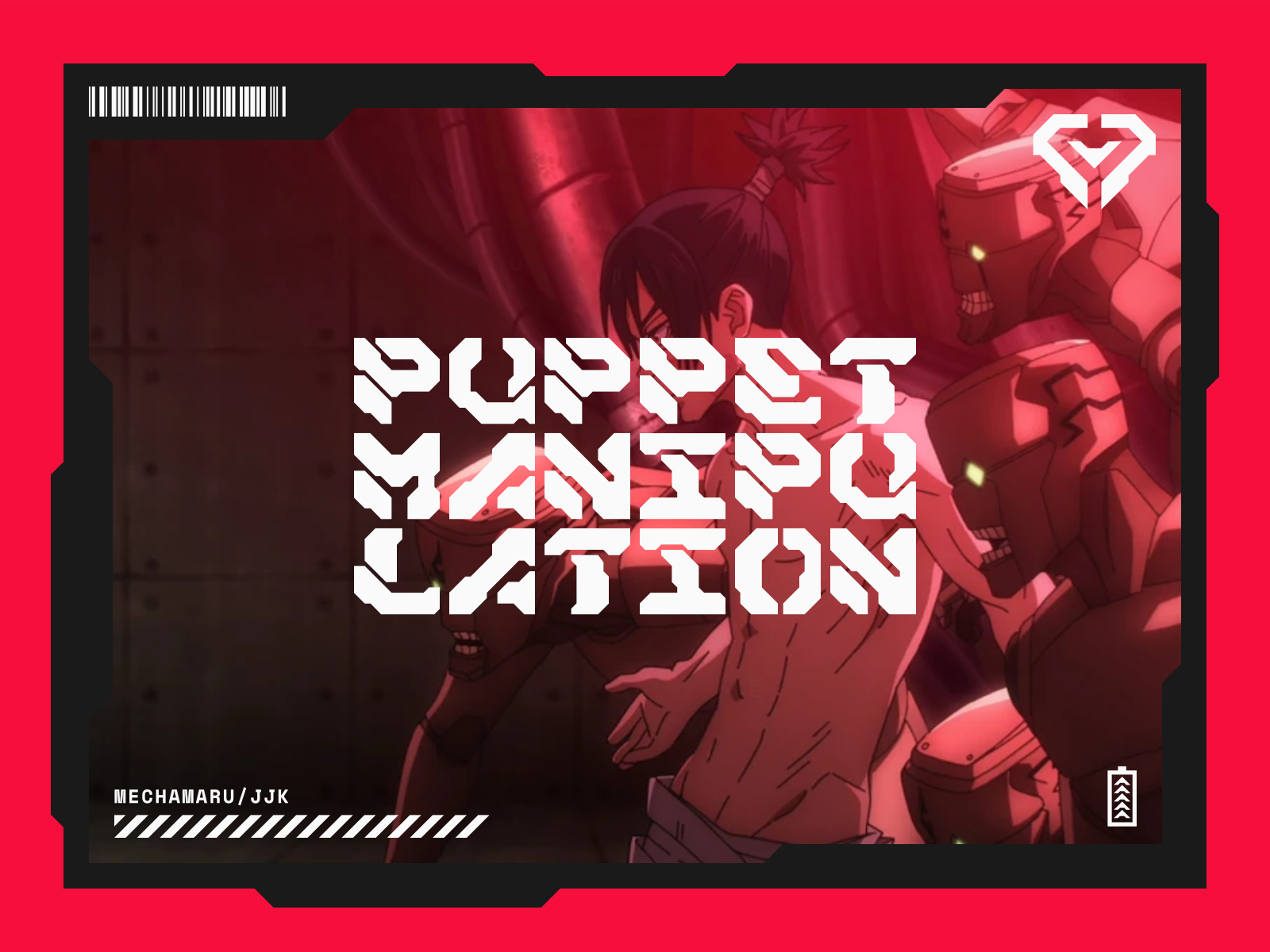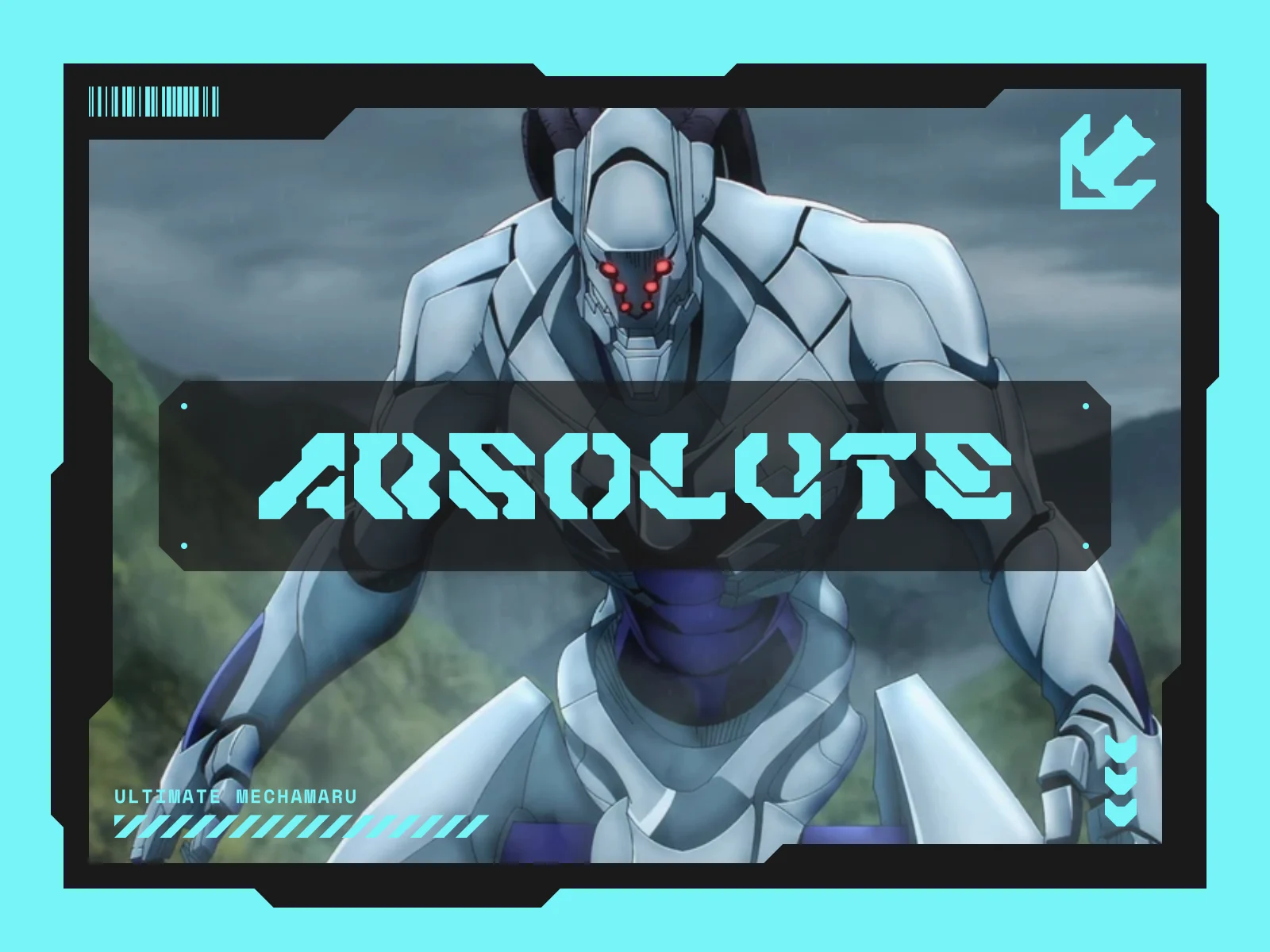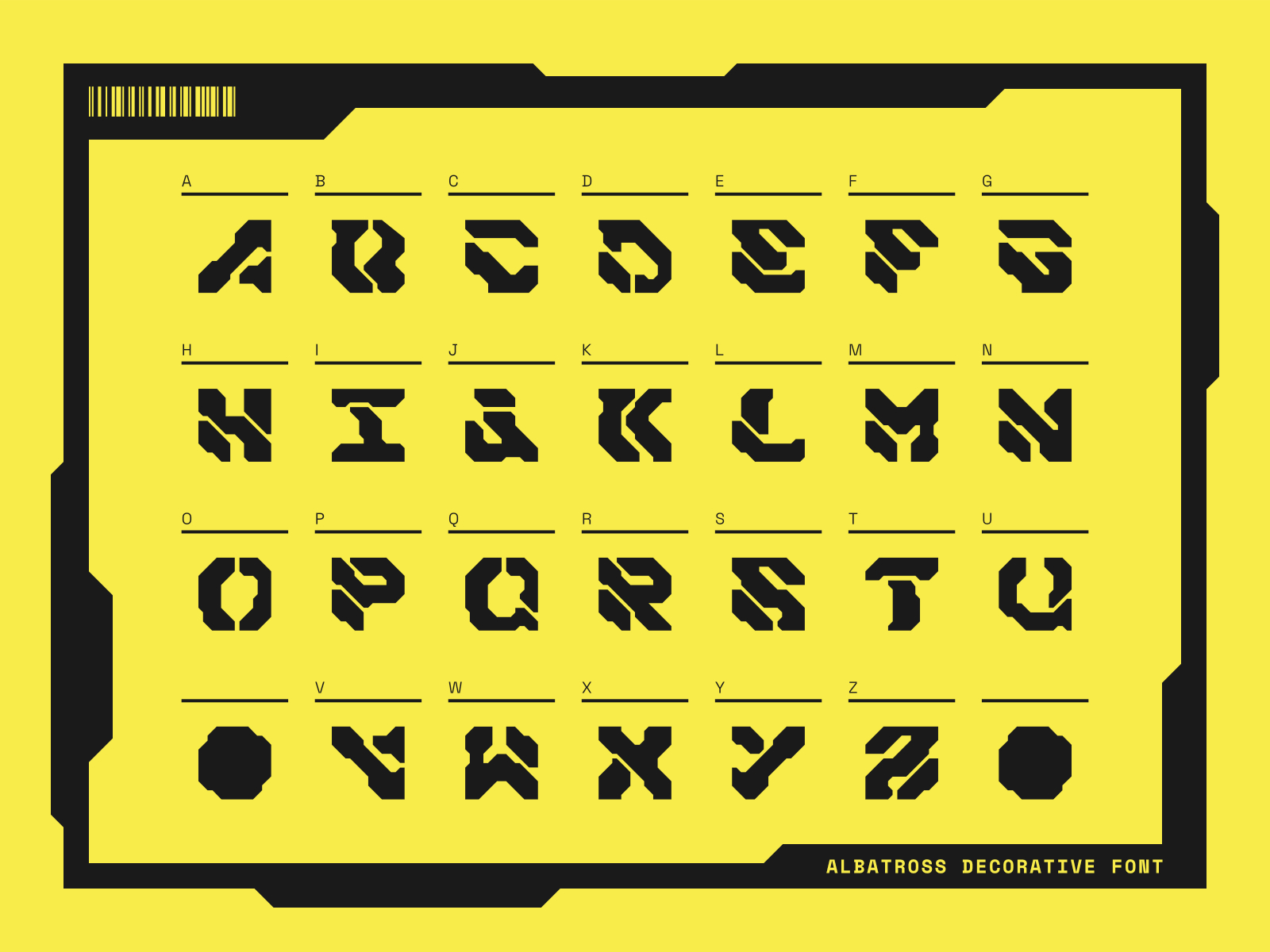
Albatross
Albatross is a bold decorative font inspired by mecha, robotics, and cyberpunk aesthetics. Its sharp cuts and futuristic forms make it perfect for tech-inspired posters, game titles, and sci-fi branding. Designed for impact and attitude — Albatross brings a mechanical edge to your designs.